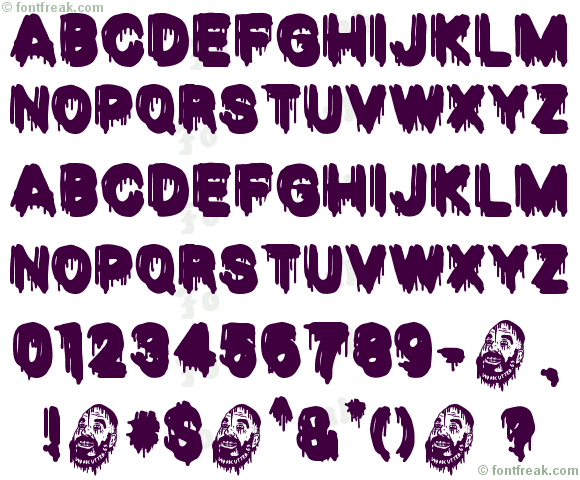
VENGANZA
Introducing the VENGANZA font, a striking display typeface designed by woodcutter Manero. This freeware typeface is characterized by its bold, dripping strokes that evoke a sense of raw energy and creativity. With a unique, almost handcrafted appearance, VENGANZA features irregular stroke weights and a playful contrast that adds personality to any design. The spacing is intentionally varied, giving it a dynamic feel that enhances its visual impact.
VENGANZA is an excellent choice for a range of design applications. Its distinctive style makes it particularly suited for movie posters, where it can capture attention and convey a sense of drama. Additionally, it is a fantastic option for music album covers, providing an edgy aesthetic that aligns well with various genres. Restaurant menus can also benefit from VENGANZA's boldness, especially in casual dining settings where a fun, inviting atmosphere is desired. Furthermore, this font can elevate event flyers, ensuring that important information stands out while maintaining a quirky charm.
The target audience for the VENGANZA font includes graphic designers, small business owners, and content creators looking for a unique typeface that breaks away from traditional norms. Its versatile design allows for creative expression that resonates with a youthful, vibrant demographic.
What sets the VENGANZA font apart is its ability to blend playful artistry with practicality. It stands out in a crowded marketplace of fonts, offering a fresh alternative for those seeking to make a statement. Whether you’re designing for print or digital media, VENGANZA delivers a memorable impact that is sure to leave a lasting impression. For those interested, a VENGANZA font free download is available, making it accessible for all creative projects.